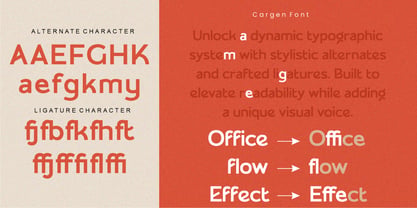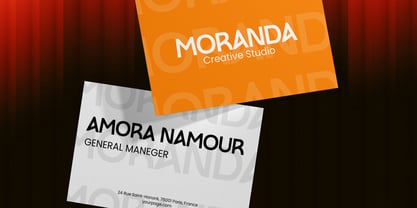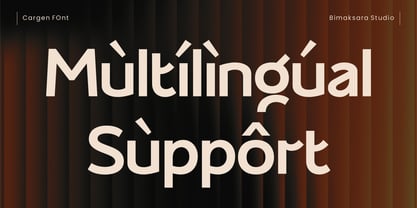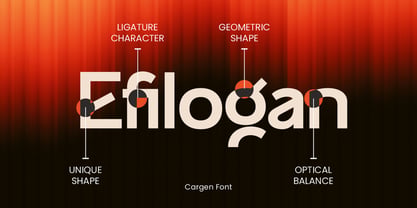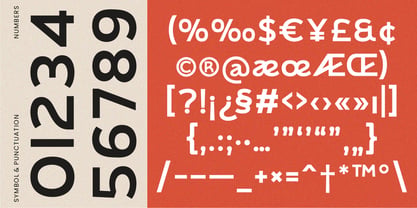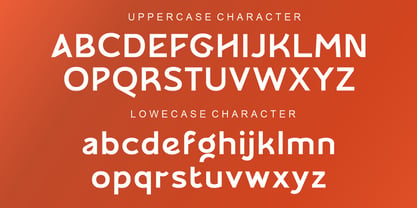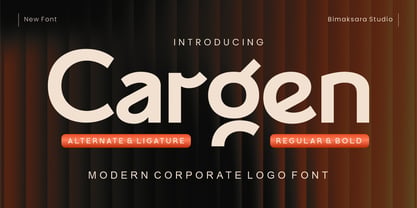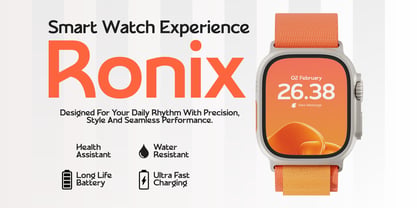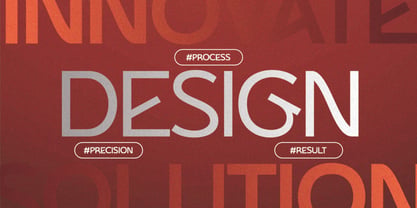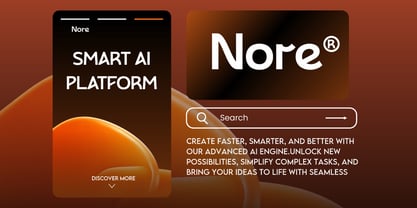
Cargen
Cargen is a modern corporate sans serif font designed to deliver a clean, professional, and powerful visual identity.
With its bold structure and smooth geometry, Cargen is perfect for creating strong logos, branding, and contemporary designs.
Built with versatility in mind, this font comes with stylistic alternates and ligatures that allow you to craft unique and dynamic typography effortlessly.
Whether you're working on branding, corporate identity, or modern visuals, Cargen brings a confident and timeless look to your design.
Features:
• Uppercase & Lowercase
• Numbers & Punctuation
• Multilingual Support
• Available in 2 Weight (Regular & Bold)
• OpenType features for enhanced typography control
Every character is designed with precision to ensure balance, readability, and a unique visual identity.
Perfect for:
• Branding & visual identity
• UI/UX & web design
• Posters & editorial layouts
• Social media graphics
Create powerful and refined typography with Cargen